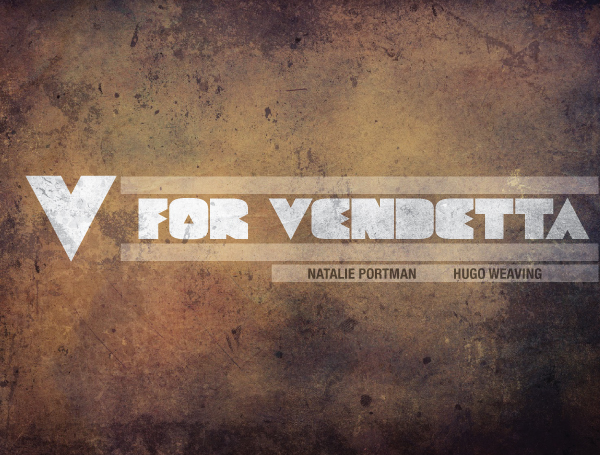
Font name: | Geometric Black |
Author: | Peter Ovens-Brown |
Note by Peter Ovens-Brown | |
Geometric Black is a heavy sans serif font designed for screen. Uses have included promotional musical theatre cards, and a russian propaganda style introduction to V for Vendetta. To view the introduction video to V for Vedetta, please visit: http://www.youtube.com/watch?v=-q_MQhDmHn4 |